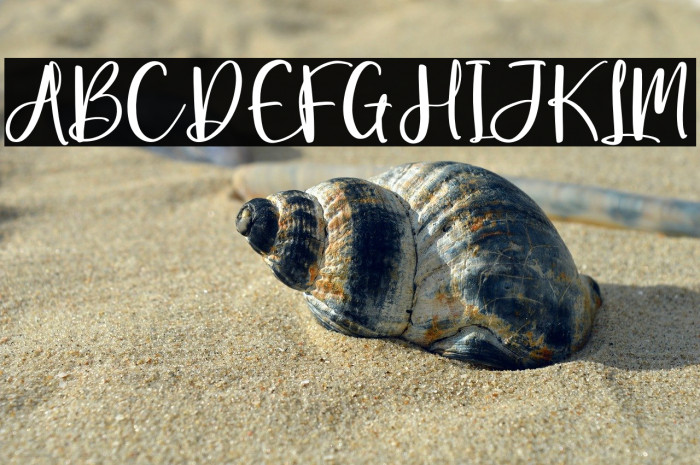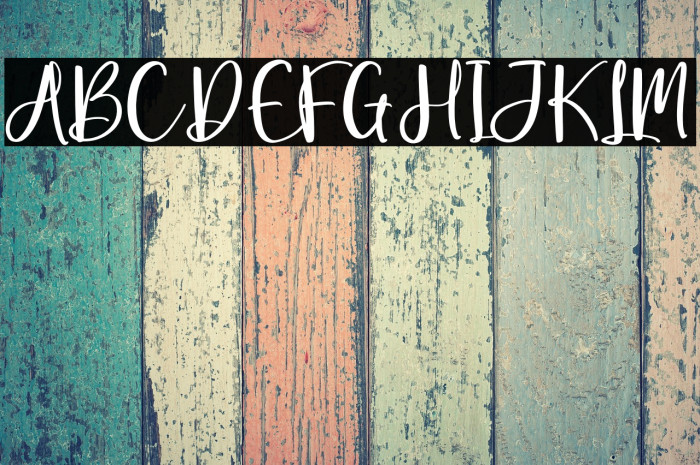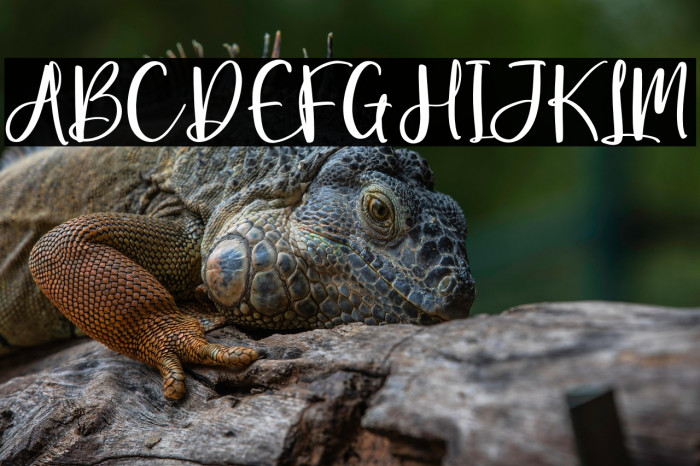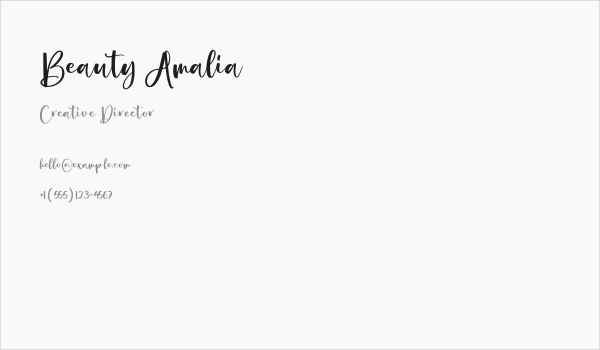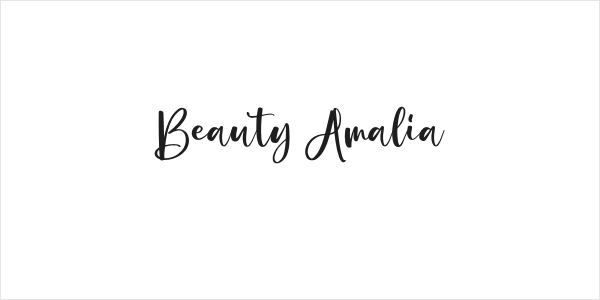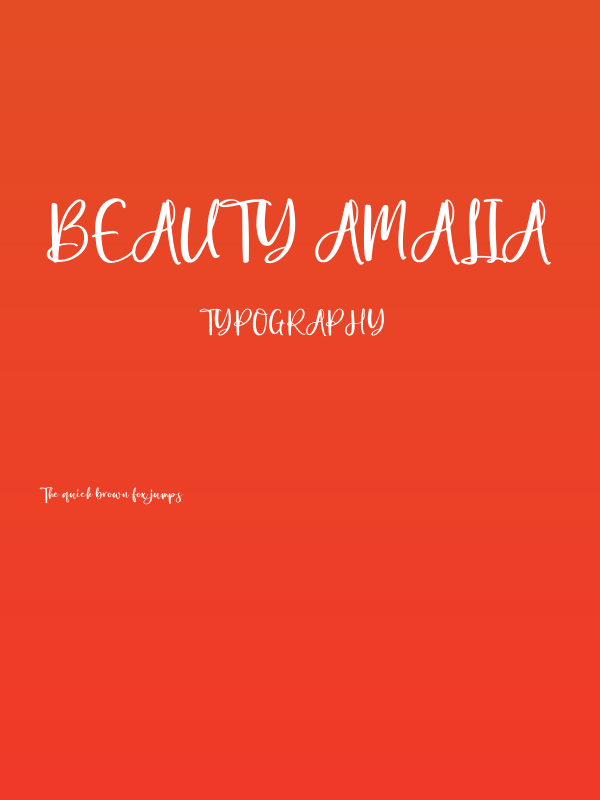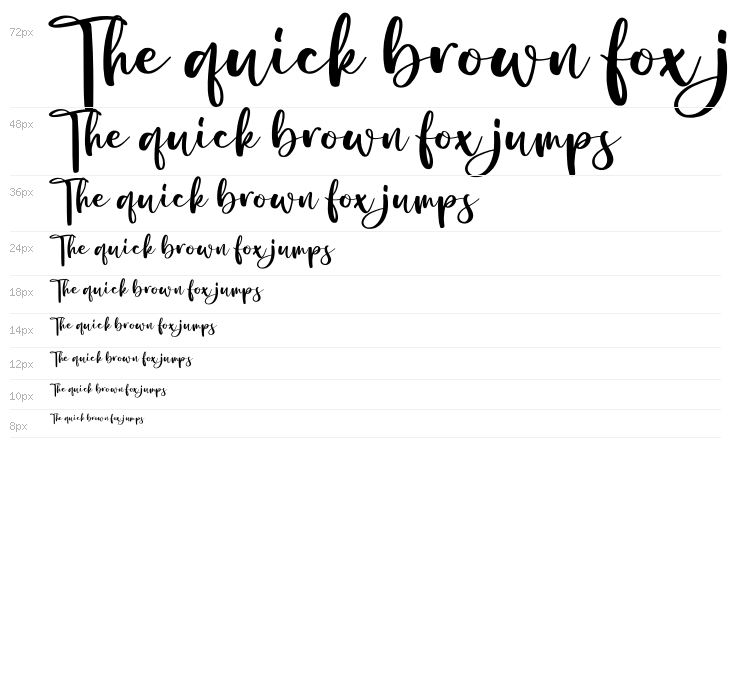
Beauty Amalia Font
Beauty Amalia Description
This font features a lively and expressive script style, characterized by its fluid and dynamic strokes. The uppercase letters exhibit a playful elegance with varying stroke widths, while the lowercase letters maintain a consistent flow, enhancing readability. The numerals and special characters complement the overall design, adding a touch of sophistication. The font's handcrafted appearance gives it a personal and inviting feel, making it suitable for creative and artistic projects. Its unique style is perfect for adding a personal touch to any design.
| Proposed Projects | Ideal for wedding invitations, greeting cards, branding, and social media graphics. |